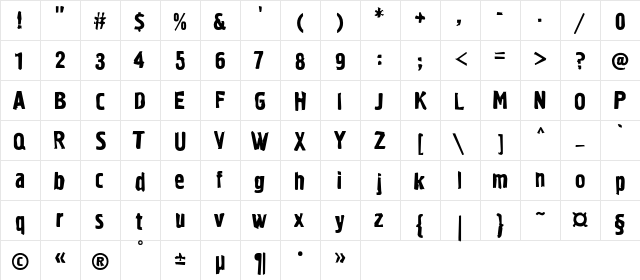
GraffitiC1 Medium Font Preview
GraffitiC1 Medium
| Foundry | ParaGraph. FastFont. Designer Alexander Tarbeev |
Design Context for GraffitiC1 Typeface
GraffitiC1 takes a measured approach to typography — its balanced proportions and neutral character make it a reliable workhorse for both digital and print work.